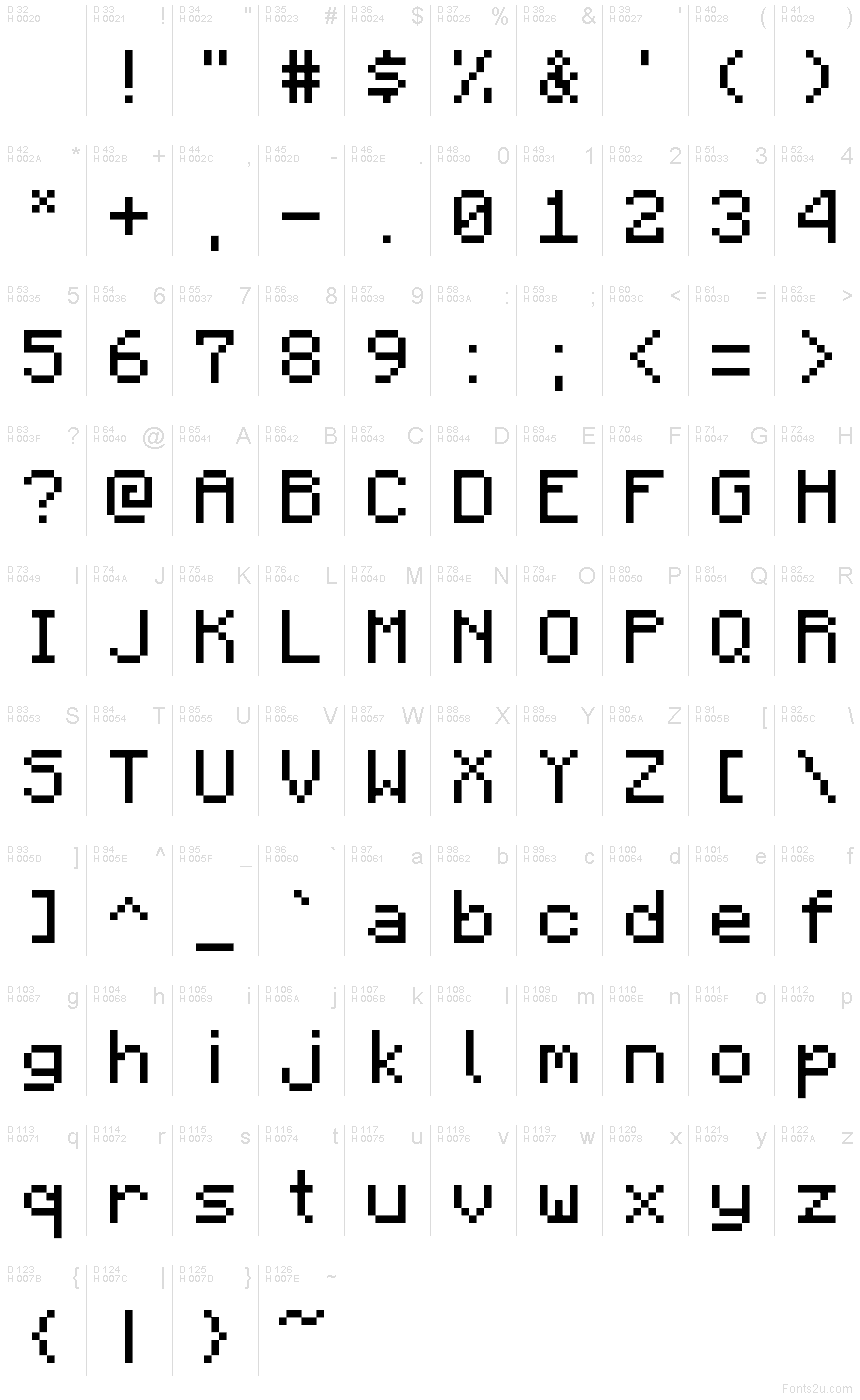
mac's Minecraft Regular
mac's Minecraft font by Macimas is a geometric bitmap font that effortlessly captures the unique digital aesthetics of pixelated designs. Blocky and modern-retro, this free typeface brings technological inspiration into each letter, encountering a beautiful balance between old and new. The outcome is not just text on your projects but an experimental character art project.
This neat font is suitable for drawing design as in video games, for product packaging as in food cans and board games, or for overall entertainment experiences. Use it in your print advertisements, daily newspapers gray sky headliner titles, websites intro screens or any editorial typography work you require.
❤️ Main - Minecraft font with bold and italic styles
?️ Tweaked - Tweaks the main package, mainly to enhance the readability of certain bold characters
✨ Extended - A little experiment that adds more characters to the main package for fun